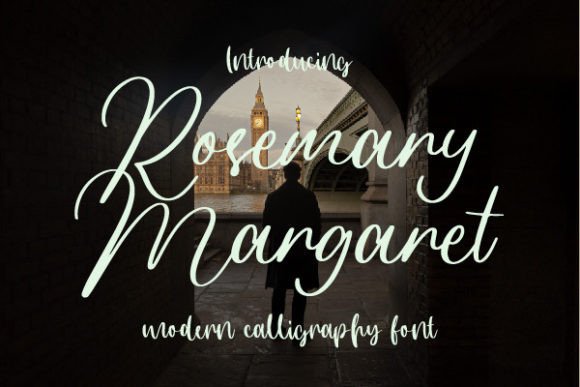
Unleash the Timeless Charm: Rosemary Margaret Script for a Glimpse of Romantic Elegance
In a world of monotonous typography, where letters dance in rigid uniformity, Rosemary Margaret emerges as a breath of fresh air, a whimsical script that captivates hearts with its fluid strokes and alluring personality. Crafted with meticulous attention to detail by the talented fiqiart, Rosemary Margaret transcends the realm of ordinary fonts, promising an enchanting journey into the realms of beauty and sophistication.
As you let your fingers glide across the keyboard, guiding Rosemary Margaret's graceful curves, you'll feel an extraordinary connection with your project, a sense of intimacy that only a font with a soul can provide. Its delicate ligatures flow harmoniously, entwining letters in a mesmerizing dance of elegance, creating a visual tapestry that shimmers with grace and allure.
Picture this: a wedding invitation adorned with Rosemary Margaret's enchanting script, the words "You're cordially invited" rendered in a cascade of flowing strokes, exuding an aura of timeless elegance that echoes the profound emotions of the occasion. Or, envision a personal branding project where Rosemary Margaret's refined personality adds a touch of sophistication, transforming ordinary designs into captivating expressions of individuality.
Rosemary Margaret is more than just a font; it's a gateway to a world where the written word comes alive, where communication transcends mere words and becomes an art form. Whether you're designing wedding stationery, crafting logos, or creating heartfelt letters, Rosemary Margaret becomes a faithful companion, guiding you towards creative brilliance and leaving an unforgettable impression on those who behold your creations.
So, embark on a journey of typographic enchantment, let Rosemary Margaret's allure transport you to a world where beauty and elegance reign supreme. Discover the magic of a font that breathes life into words, igniting hearts and leaving an enduring legacy of timeless charm.